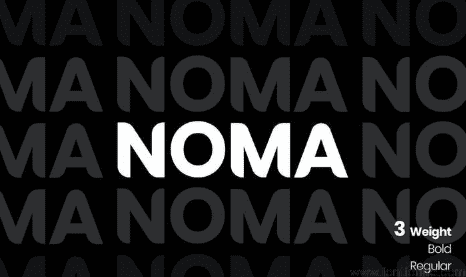
NOMA Sans Serif Font
NOMA Sans Serif Font is perfect for contemporary branding, minimalist design projects, clean website layouts, editorial publications, architectural presentations, tech startups, healthcare communications, educational materials, modern signage systems, professional portfolios, corporate identities, and sleek user interfaces.
What makes NOMA Sans Serif Font exciting is its perfect balance of geometric precision and organic warmth that creates exceptional readability while maintaining distinctive character. This sophisticated typeface embodies the principles of modern design through its clean lines, optimized proportions, and subtle humanist details that prevent coldness often associated with purely geometric fonts. The font's contemporary aesthetic speaks to today's design sensibilities while its technical excellence ensures superior performance across digital and print applications. Its versatile nature makes it equally effective for large display headlines and extended reading text, providing designers with a reliable foundation for comprehensive brand systems.
The NOMA Sans Serif Font family includes thin, light, regular, medium, bold, and black weights, each available with matching italic styles. The comprehensive family also features condensed variations and extended styles, providing designers with extensive typographic options for complex layout systems and hierarchical information design.
Whether you're creating modern brand identities, designing digital experiences, or developing editorial publications, NOMA Sans Serif Font Free Download delivers the clean sophistication your contemporary projects demand. This premium typeface excels in professional environments where clarity and modern aesthetics are paramount for effective communication. The font's technical excellence includes advanced OpenType features, comprehensive language support, and carefully optimized hinting for perfect screen rendering across all devices. Design agencies and progressive companies choose this font for its ability to convey innovation and professionalism simultaneously. The extensive character set supports multiple languages and includes specialized glyphs for technical and scientific applications. Professional designers appreciate its consistent performance across different media and cultural contexts, ensuring reliable brand expression globally. When you select this exceptional sans serif for your projects, you're choosing a typography solution that combines contemporary design principles with functional excellence, ensuring your communications maintain visual clarity and professional credibility while projecting modern sophistication that resonates with today's discerning audiences across all digital and traditional media platforms.